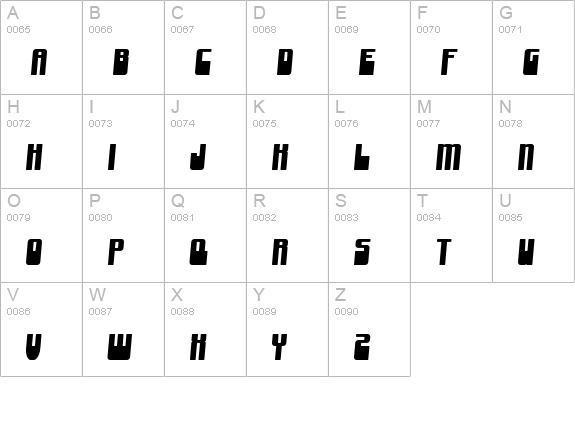
Groove Machine Font Details
Groove Machine font exudes a dynamic and energetic vibe, perfect for capturing attention and adding a touch of playfulness to your designs. With its bold and modern style, this font is ideal for projects that require a bold statement or a touch of retro charm. The sleek lines and rounded edges of Groove Machine give it a unique and stylish appeal that is sure to make your text pop. The best part? Groove Machine font is free to download at FontsMarket.com! This means you can easily incorporate this eye-catching font into your projects without any cost. Whether you're designing posters, logos, or social media graphics, Groove Machine font is a versatile option that will surely elevate your designs. Don't miss out on this fantastic opportunity to add a touch of groove to your work for free!